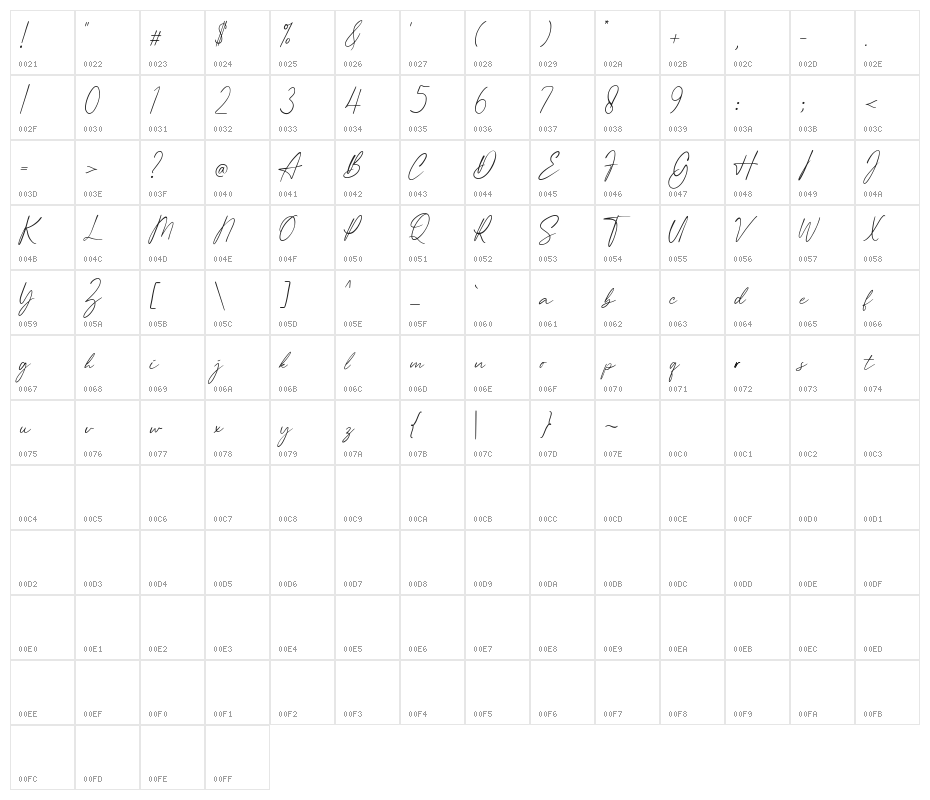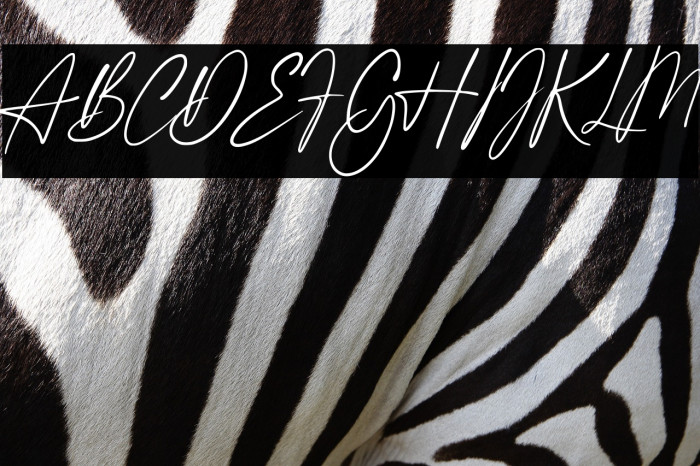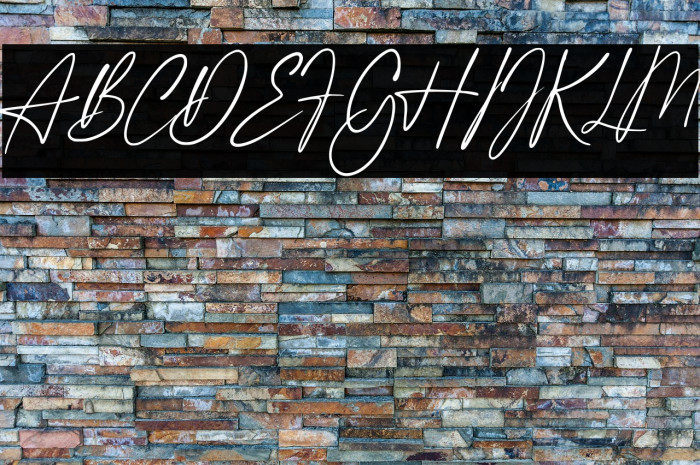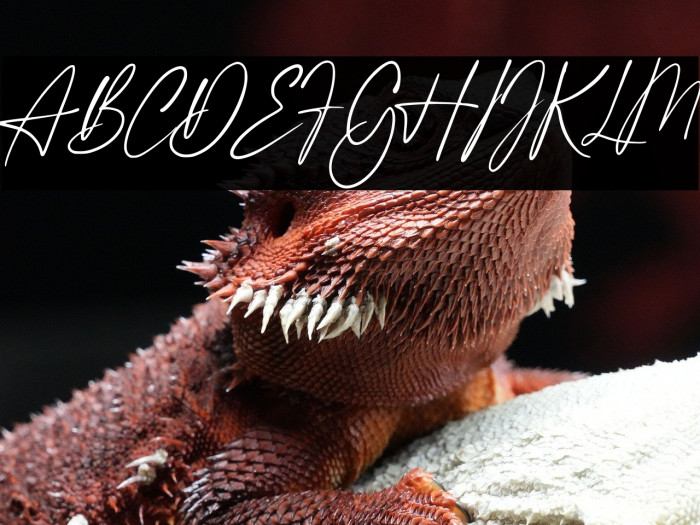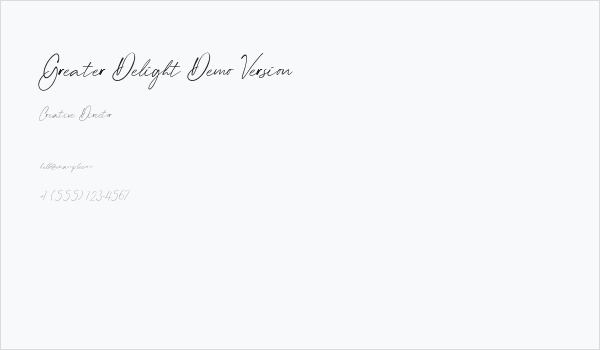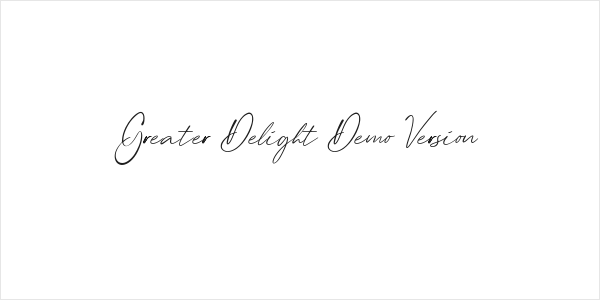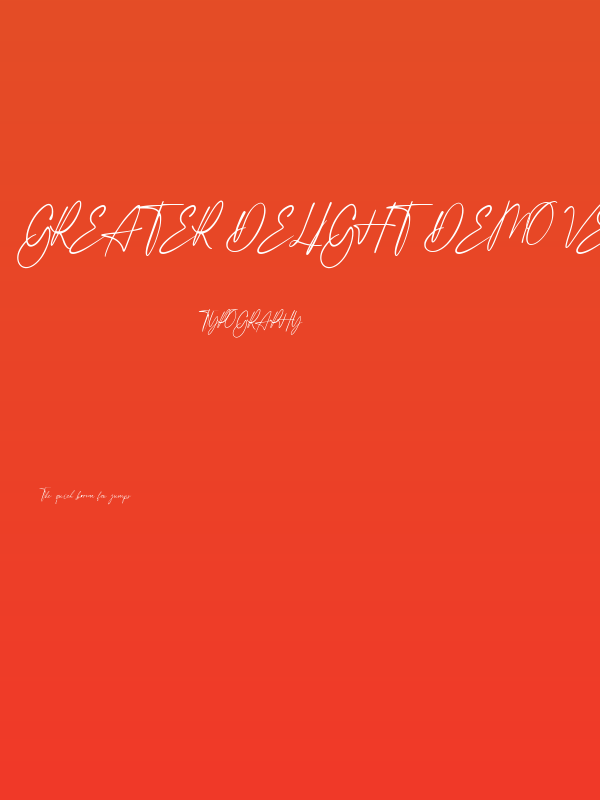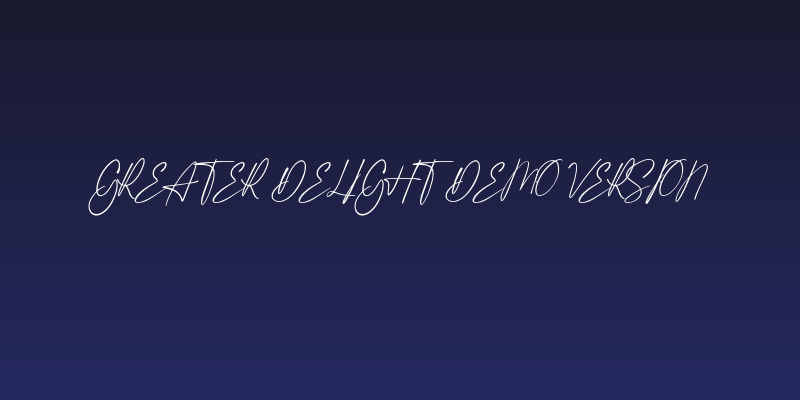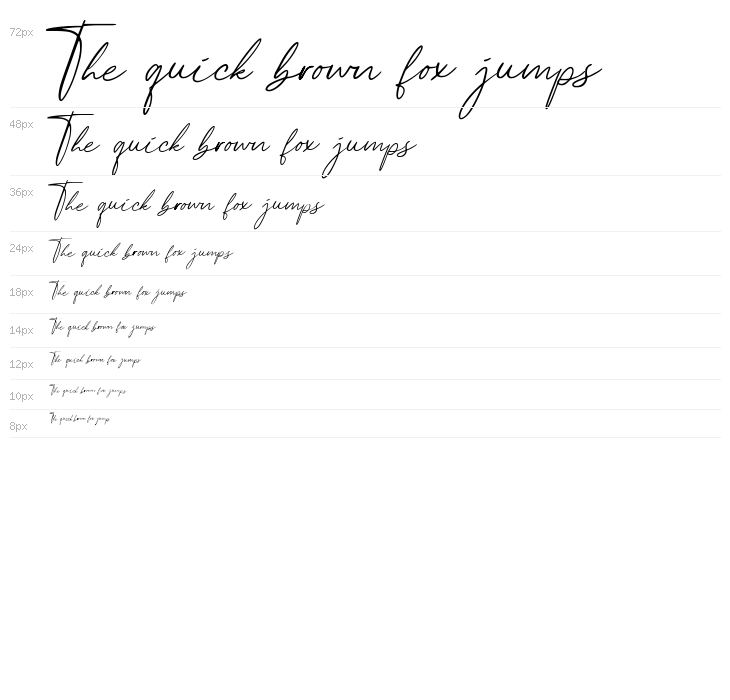
Greater Delight Demo Version Font
Greater Delight Demo Version Description
This font exhibits a flowing, elegant script style that mimics natural handwriting with a modern twist. The letters are connected in a cursive manner, providing a seamless and fluid appearance. The strokes are thin and delicate, with a consistent flow that enhances readability while maintaining an artistic flair. The uppercase letters are slightly larger and more elaborate, adding a touch of sophistication. The lowercase letters are more understated, yet they maintain the same graceful curves. Numbers and special characters are designed to match the overall aesthetic, ensuring a cohesive look across all text elements. This font is perfect for projects that require a personal, handwritten touch, such as invitations, greeting cards, or branding materials.